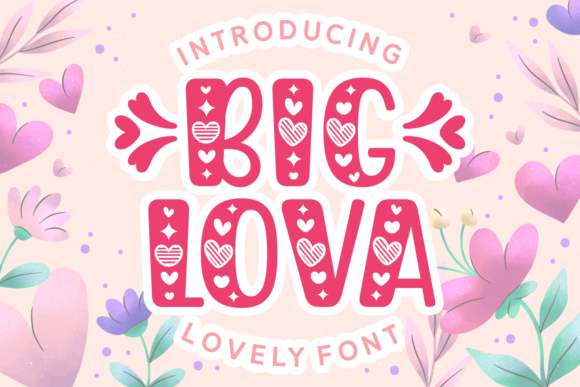
The Big Lova Font: A Romantic and Chic Addition to Your Design Arsenal
Big Lova Font is a romantic and chic decorative font that’s perfect for creating gorgeous wedding invitations, beautiful stationery art, eye-catching social media posts, and more. Here’s what I love about it:
- ✨ Elegant and sophisticated design that’s perfect for special occasions
- 💕 Beautifully crafted to add a touch of romance to any design
- 🎉 Versatile and can be used for a variety of design projects
While Big Lova Font is an amazing addition to any design project, it’s not without its quirks. Here are a few things to keep in mind:
- 🤔 Some of the more intricate details can get lost at very small font sizes
- ⚠️ Not suitable for body text or long blocks of writing; best used for headlines and titles
The Designer Inspiration Behind Big Lova Font
Big Lova Font was designed with romance and elegance in mind. The designer wanted to create a font that would evoke feelings of love and sophistication, perfect for special occasions like weddings and anniversaries. The result is a beautiful and versatile font that’s sure to add a touch of glamour to any design project.
| What type of projects is Big Lova Font best suited for? | Big Lova Font is perfect for creating wedding invitations, stationery art, social media graphics, and more. |
| Is Big Lova Font easy to read? | Yes, Big Lova Font is highly legible, even at smaller font sizes. |